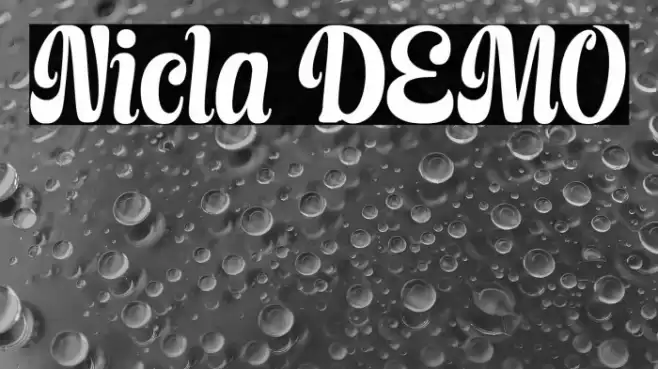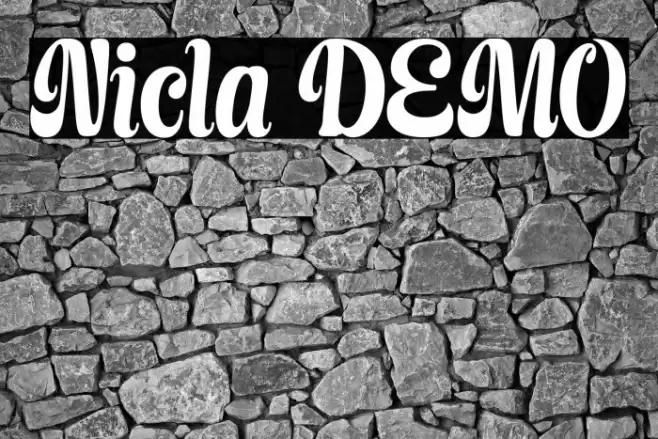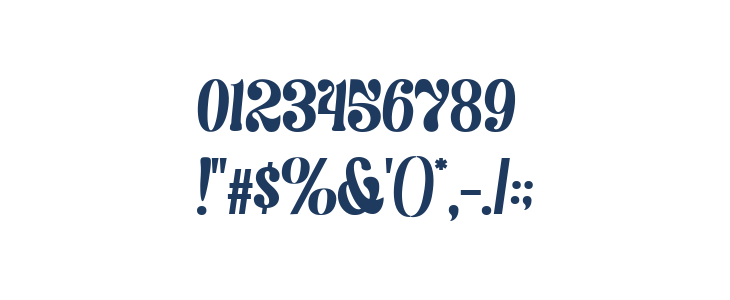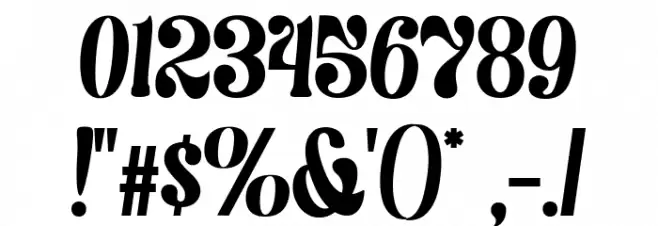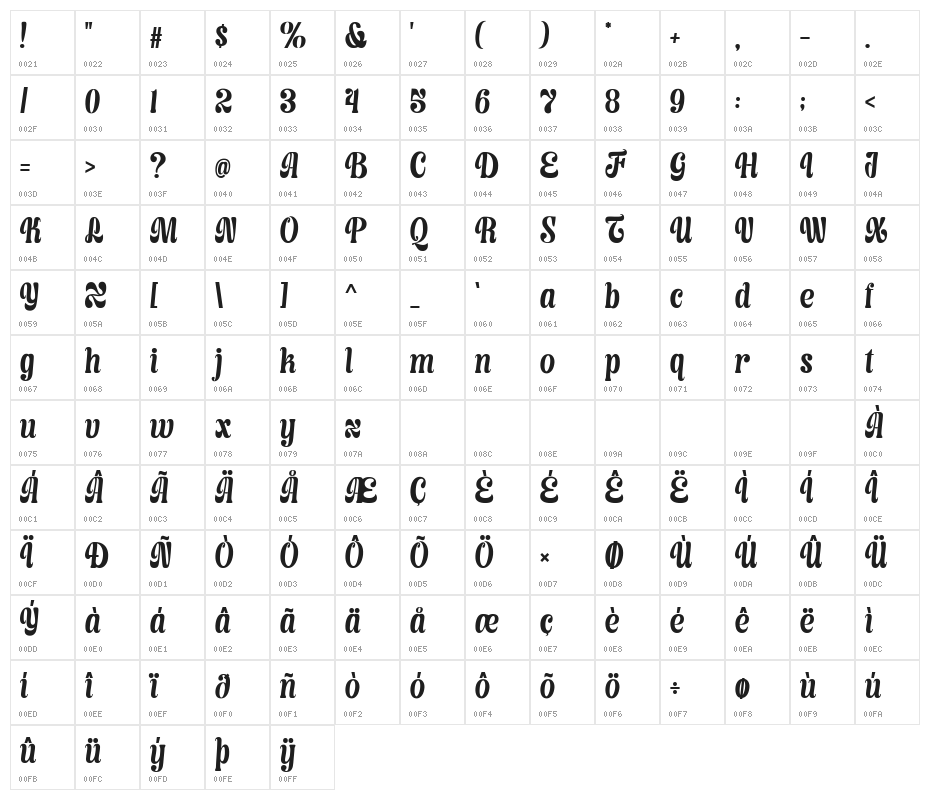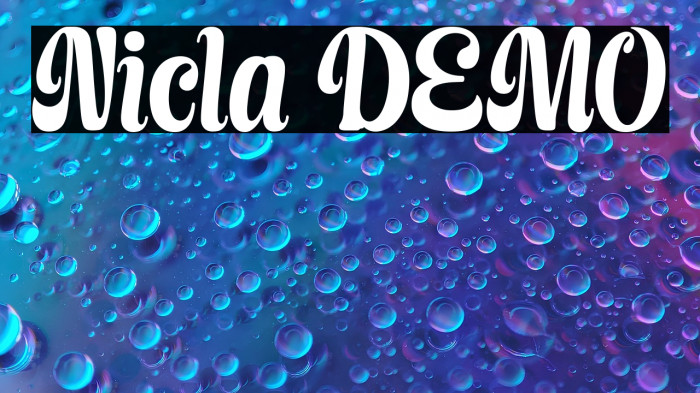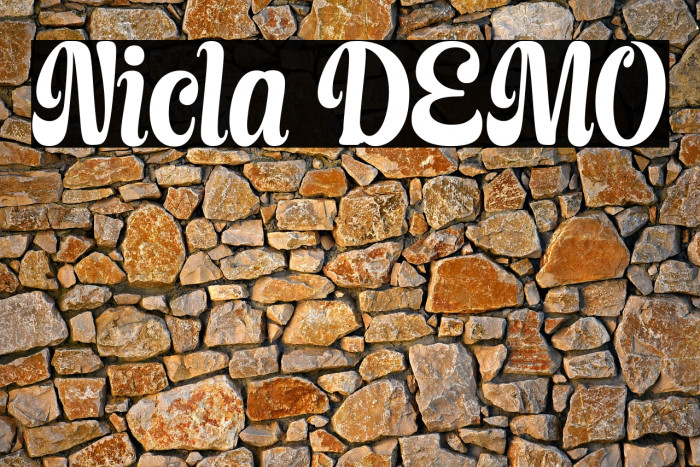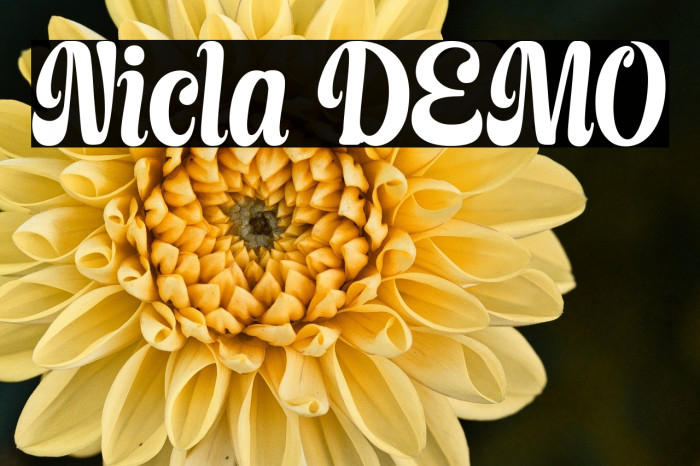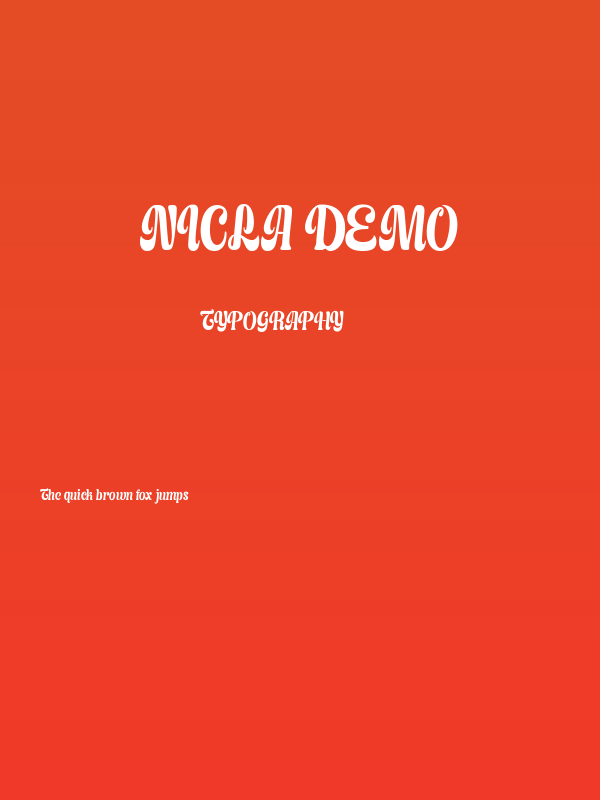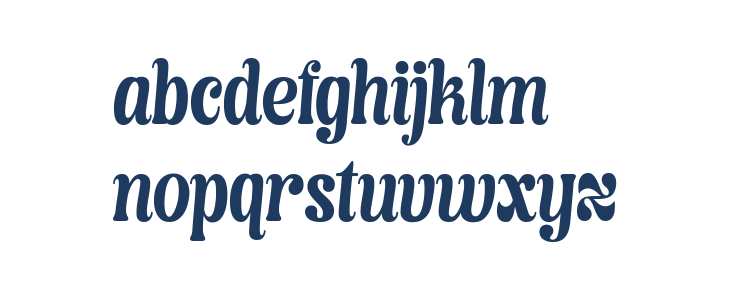
Nicla DEMO Font
Nicla DEMO Description
This font features a bold and expressive style with a strong emphasis on curves and flourishes. The uppercase letters are particularly striking, with a playful yet sophisticated design that captures attention. The lowercase letters maintain a consistent flow, complementing the uppercase with their rounded forms. Numbers and special characters are equally bold, ensuring readability and impact. The overall design is reminiscent of vintage signage, making it ideal for projects that require a touch of nostalgia and elegance.
A bold, vintage-inspired font with expressive curves and flourishes from Regular fonts.
- Proposed Projects: Ideal for branding, poster design, packaging, and any project requiring a vintage or retro aesthetic.
- Overall Style: Vintage